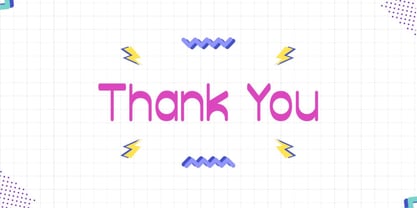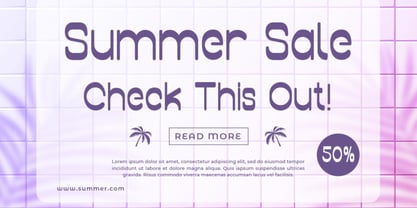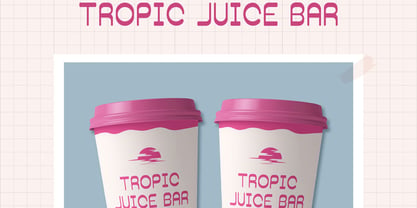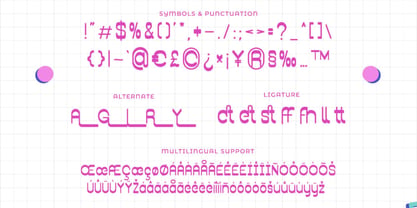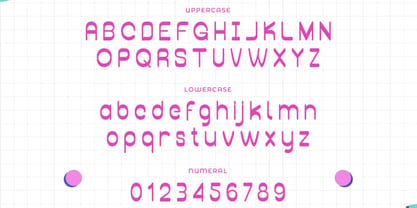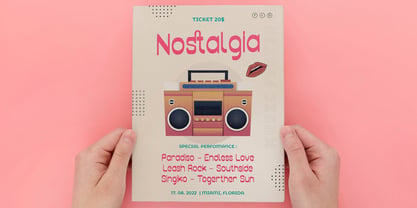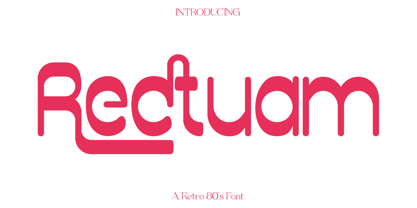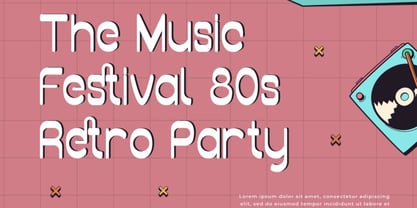
Rectuam
The Rectuam Font Family was designed by Olivia Love and published by Only Fonts. Rectuam contains 1 styles. More about this family
Rectuam – Retro Decorative Display Font Rectuam is a vibrant retro display font that infuses the playful energy and bold style of the 1980s into your designs. Drawing inspiration from vintage signage, classic arcade visuals, and retro pop culture, Rectuam encapsulates the essence of nostalgia with modern precision. Its distinctive decorative letterforms blend fun, personality, and timeless vintage appeal, ensuring every project feels lively and memorable. Ideal for a diverse range of creative applications, Rectuam excels in poster design, branding, album covers, social media graphics, packaging, and fashion projects. Its eye-catching style is perfect for headlines, logos, and titles where making a bold statement is essential. Whether you're crafting a retro-themed campaign or adding a nostalgic touch to contemporary work, Rectuam delivers a playful yet professional aesthetic that truly stands out. Featuring a complete set of uppercase and lowercase letters, symbols, punctuation, numerals, alternates, and ligatures, Rectuam is versatile and ready to tackle any creative challenge. Its high-quality craftsmanship ensures smooth readability while maintaining a unique decorative charm. Bring your projects to life with Rectuam and let the spirit of the 80s shine through every design. Rectuam Retro Decorative Font Features: • Uppercase and lowercase characters • Symbols, punctuation, and numerals • Alternates and ligatures for creative flexibility • Multilingual support for broad use This font is perfect for designers seeking to blend nostalgia with bold creativity, giving every project a playful, retro personality.
Designers: Olivia Love
Current Foundry: Only Fonts